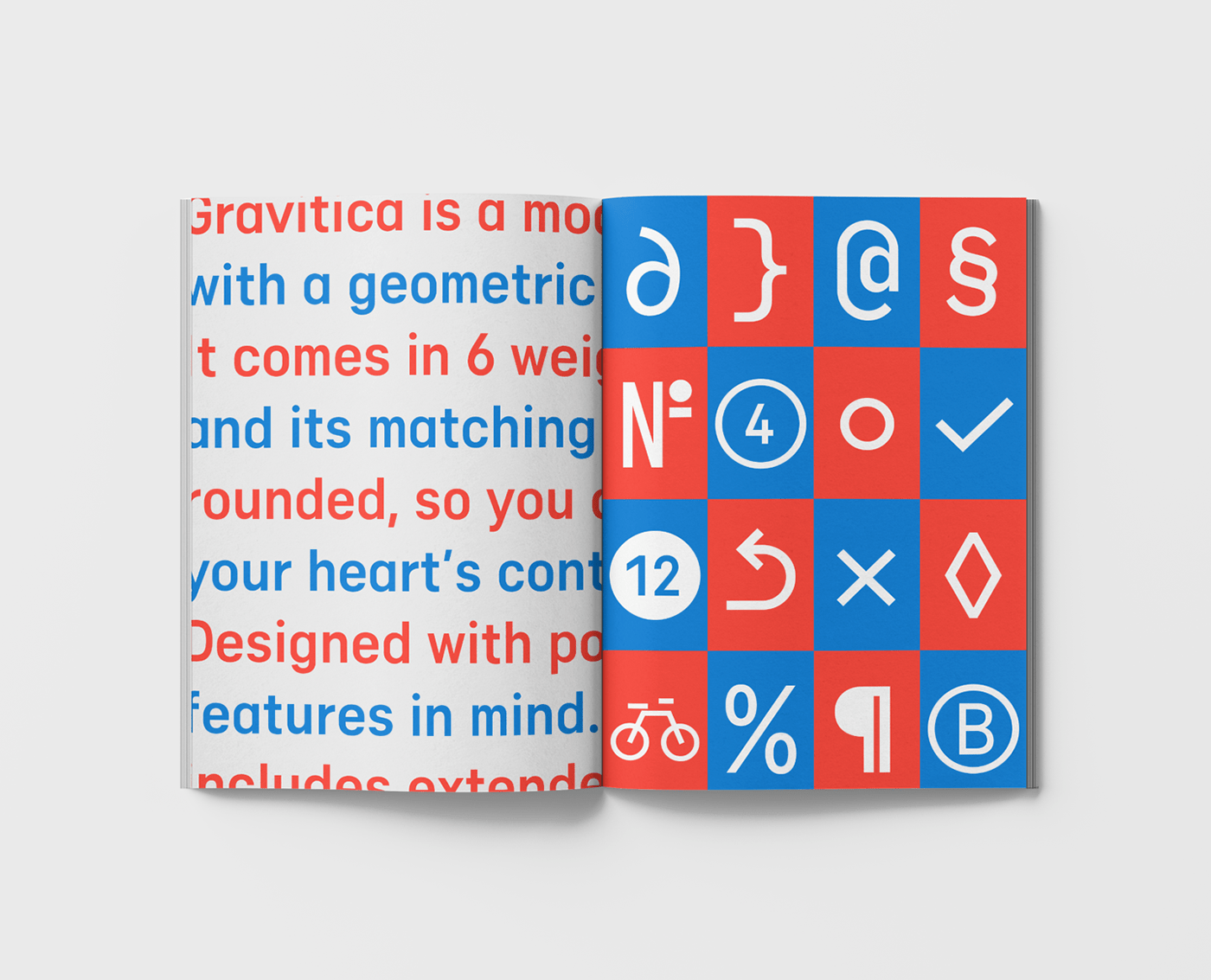
Gravitica Font
Gravitica is a modern sans serif with a geometric touch. It comes in 6 weights, 25 uprights and its matching rounded, italics, so you can use them to your heart’s content. Designed with powerful opentype features in mind. Each weight includes extended language support, fractions, tabular figures, arrows, ligatures, icons and patterned.
Gravitica family consists of 25 styles (12 weights, 12 Italics and 1 patterns), in each of which there are more than 940+ glyphs. In the typeface, each weight includes extended language support, fractions, tabular figures, arrows, ligatures and more. Perfectly suited for graphic design and any display use. It could easily work for web, signage, corporate as well as for editorial design. documents and folders, mobile interface.